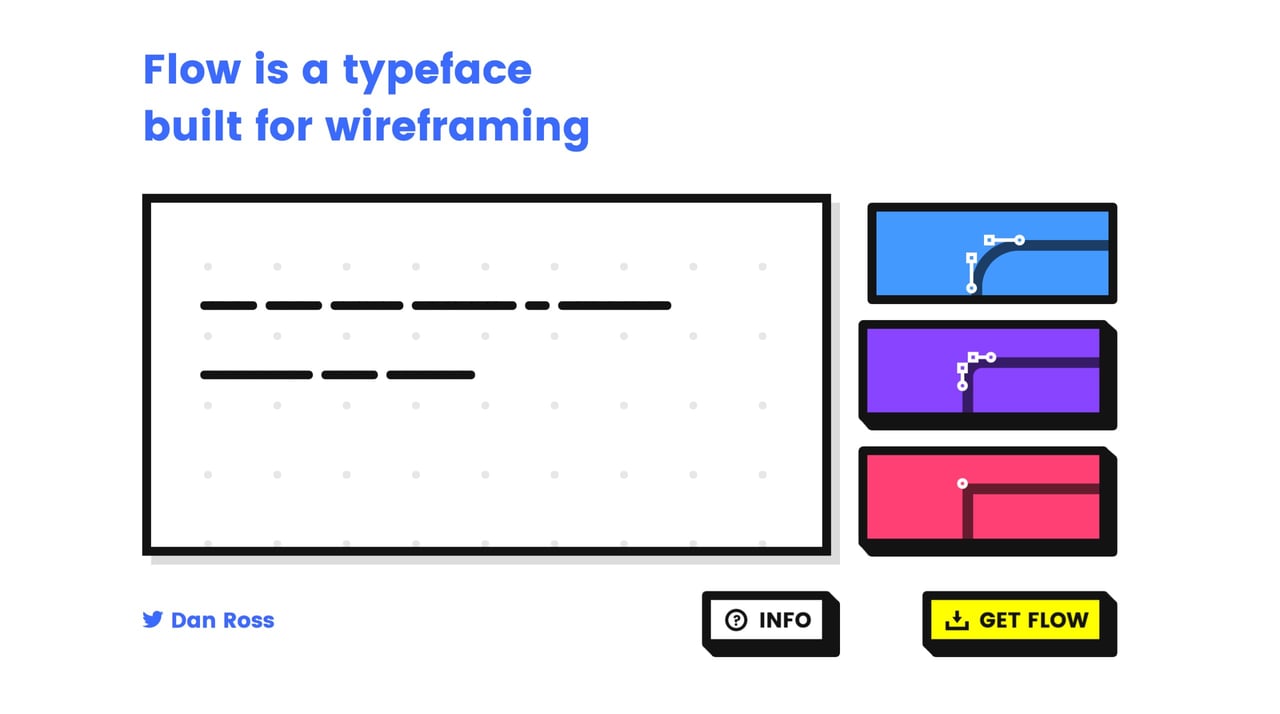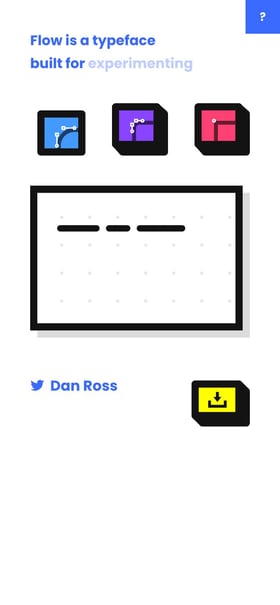
Flow
Author unknownSlick little One Pager for Flow – a free typeface for wireframing. The Singe Page site features an interactive, central demo area with clear alongside settings to switch between the 3 weights (circular, rounded and block). The mobile adaption is also well thought of with all elements reduced and re-arranged. Awesome freebie and lovely One Pager, cheers Dan!